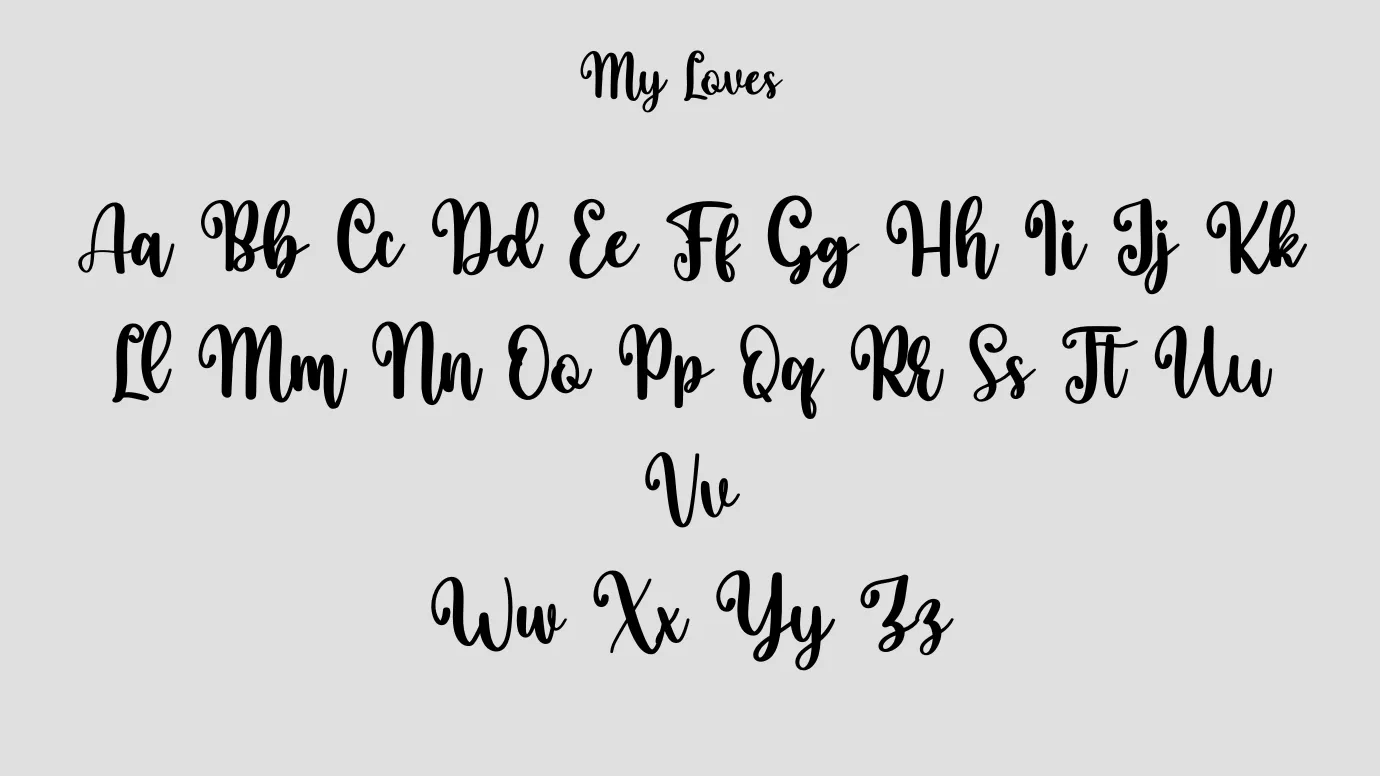
My loves Font is a very cute script-type font. It was designed by Dian Haniff. The look of this lovely font is very interesting and loveable.
My Loves Font
NameMy Love Font
DesignerDani Haniff